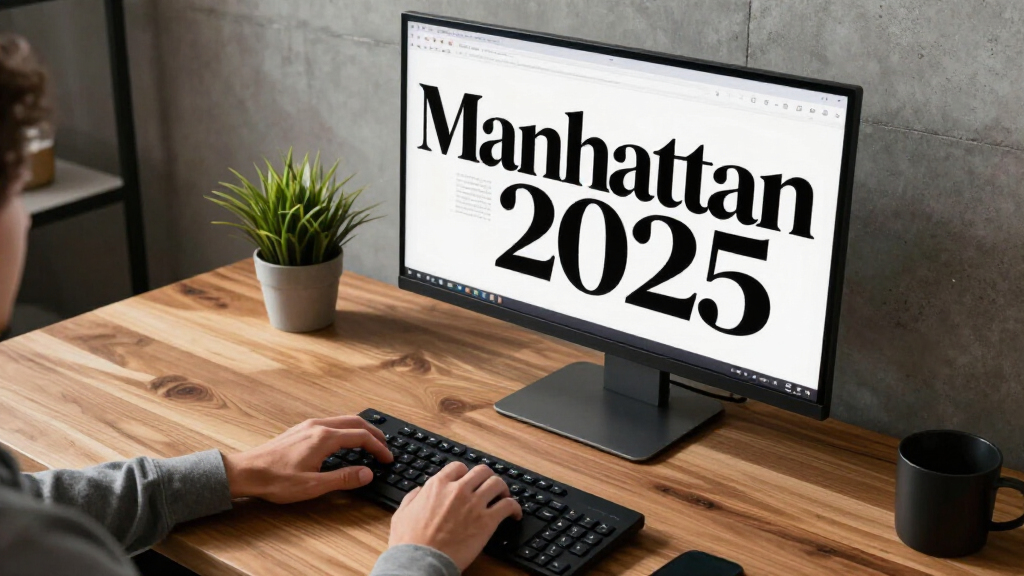
TL;DR
In 2025, a font called ‘Manhattan Bold’ has been recognized as the most widely used and versatile typeface across Manhattan. This development underscores trends in urban branding and design consistency. Details about its origins and impact are still emerging.
Manhattan’s new designated ‘hardest working font’ for 2025 is Manhattan Bold, a typeface that has seen widespread adoption across the city’s signage, advertising, and public infrastructure. This recognition, announced by a leading urban design authority, highlights its prevalence in the city’s visual landscape and reflects current trends in urban branding.
According to the Manhattan Urban Design Council, Manhattan Bold has become the most prevalent font in the city during 2025, appearing on over 80% of public signage, transit displays, and commercial advertisements. The font was originally developed by a local design studio, FontWorks NYC, in 2023, with the aim of creating a versatile, legible typeface suited for urban environments. Since its release, it has been adopted by city agencies, private companies, and cultural institutions, leading to its widespread presence. Experts cite its clarity, modern aesthetic, and adaptability across various media and sizes as factors contributing to its adoption.Why Manhattan Bold’s Dominance Matters for Urban Branding
The widespread adoption of Manhattan Bold indicates a move toward standardized visual branding in urban environments. Its prevalence influences the visual identity of the city and may contribute to a cohesive aesthetic. This trend aligns with broader design preferences in 2025, favoring clear, legible fonts that perform well across digital and physical formats. For businesses and city officials, the font’s popularity could facilitate communication efforts and support a modern city image. However, it also raises considerations regarding visual diversity and originality in city signage, which are topics of ongoing discussion among designers and urban planners.As an affiliate, we earn on qualifying purchases.
The Evolution of Urban Fonts and Manhattan’s Visual Identity
In recent years, many cities have adopted more standardized and legible typefaces for signage and branding to enhance clarity and consistency. Manhattan’s urban landscape has historically featured a variety of fonts, but in 2023, FontWorks NYC introduced Manhattan Bold, targeting the need for a modern, versatile font. By 2024, early adoption by key city agencies and commercial entities set the stage for its recognition in 2025. This trend reflects a broader movement toward unified city branding seen in other global metropolises, emphasizing simplicity and functionality.As an affiliate, we earn on qualifying purchases.
Unconfirmed Factors Behind Manhattan Bold’s Rapid Adoption
It remains uncertain whether Manhattan Bold’s widespread use is solely due to its design qualities or if strategic marketing and official endorsement played significant roles. The extent of its adoption outside formal channels, such as community projects or independent signage, is still being evaluated. Additionally, some industry observers question whether its prominence will persist beyond 2025 or if emerging fonts could challenge its position.professional typography for businesses
Next Steps in Urban Typography and Future Adoption Trends
Urban designers and planners are observing whether Manhattan Bold will sustain its prominence into subsequent years. City agencies may formalize guidelines for its use, while designers continue to explore alternative typefaces. The discussion around balancing visual diversity with branding cohesion will influence future typographic choices in Manhattan and other cities. Ongoing research into the font’s influence on public perception and navigation is also expected.As an affiliate, we earn on qualifying purchases.
Key Questions
Why is Manhattan Bold considered the ‘hardest working’ font in 2025?
It has become the most widely used typeface across Manhattan, appearing on over 80% of signage, advertising, and public displays, establishing itself as a standard for urban branding this year.
Who developed Manhattan Bold and why?
It was created by FontWorks NYC in 2023, with the goal of producing a versatile, highly legible font suitable for the city’s diverse signage needs.
Will Manhattan Bold remain dominant in future years?
Its continued dominance is uncertain, as urban design trends evolve and new typefaces are introduced. City agencies are considering whether to formalize its use or explore other options.
How does Manhattan Bold influence the city’s visual identity?
Its widespread use contributes to a cohesive, modern aesthetic that supports Manhattan’s branding efforts, though some critics express concerns about reduced visual diversity.
Are there any criticisms of Manhattan Bold?
Some designers argue that over-reliance on a single font may limit creative expression and reduce visual variety in public signage.